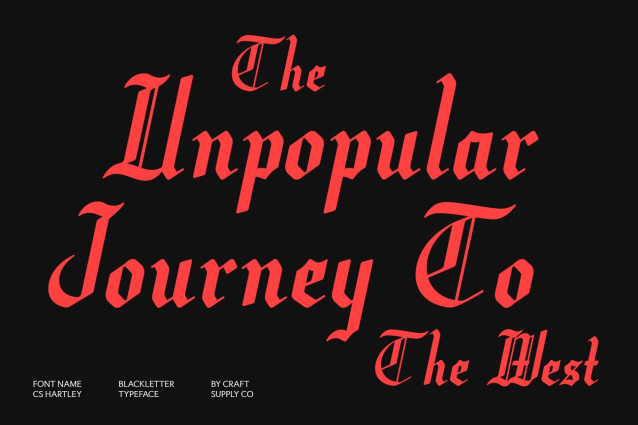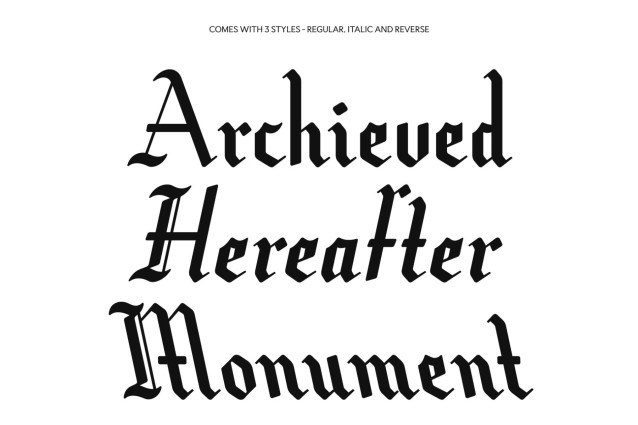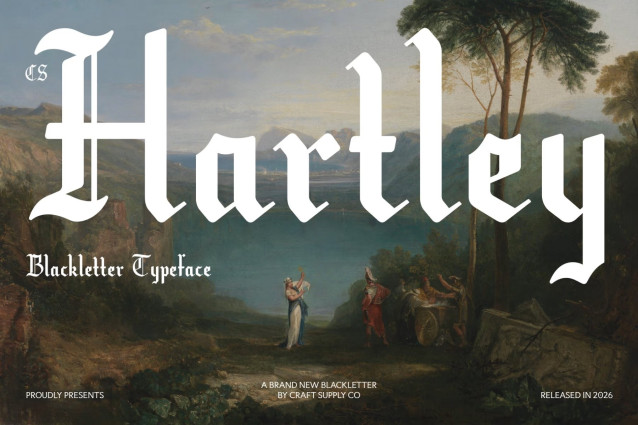
CS Hartley – Blackletter Font
CS Hartley – Decorative Blackletter Display Font: Where Gothic Tradition Meets Dramatic Expression
Bold Blackletter Forms with Timeless Character
This is a display font featuring bold, decorative Blackletter forms inspired by the rich heritage of traditional Gothic typography. Its strong strokes, distinctive angles, and intricate details create a commanding visual presence that feels both classic and unforgettable. The font captures the essence of historical craftsmanship while presenting it in a bold and contemporary display style.
Mysterious and Dramatic Visual Appeal
This font conveys a mysterious and dramatic atmosphere that instantly draws attention. The decorative elements add depth and personality, creating a sense of intrigue and artistic sophistication. Every letterform is designed to make a statement, bringing intensity and character to any composition.